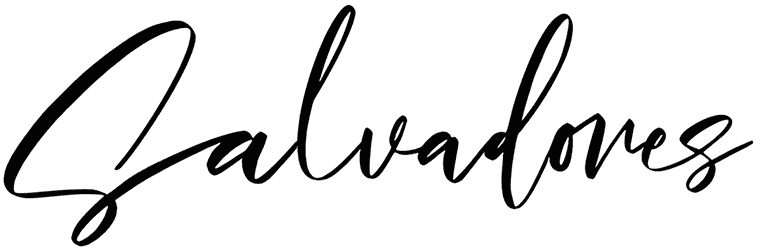
Salvadores Font
The world of handwritten fonts is so vast that you always have a new option to add to your collection. Salvadores is a late member of this family that still has lots of novel things to offer.
This handwritten font hides the same human identity of all scripts, with the difference that this time the character is more serious and a bit unreadable. You can count on Salvadores for designing signatures, writing on business cards, and wherever you don’t need numbers.